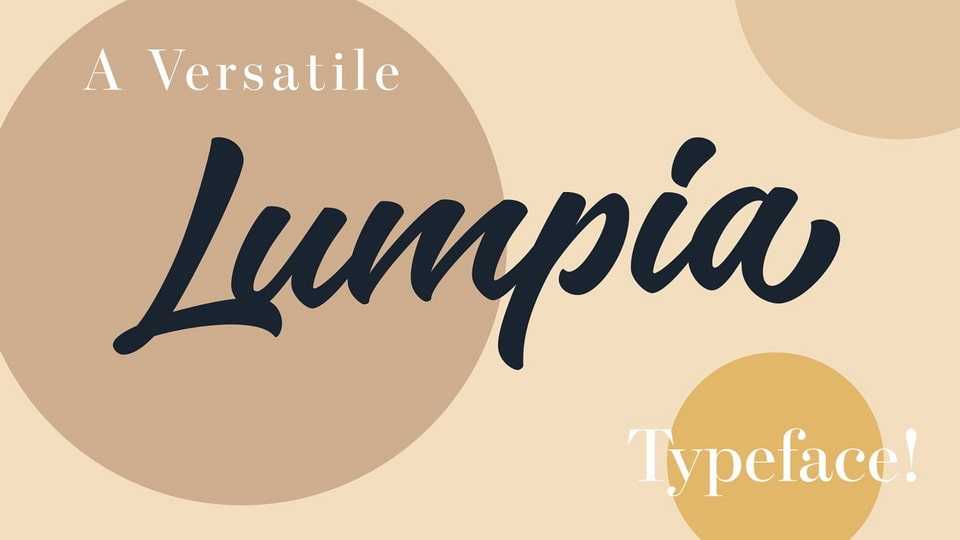
Lumpia Brush Font › Fontesk – Download Grátis
Download Lumpia font, a bold script typeface imbued with natural charm. Perfect for a variety of creative projects including logos, printed quotes.
Designer: Saffatin Co